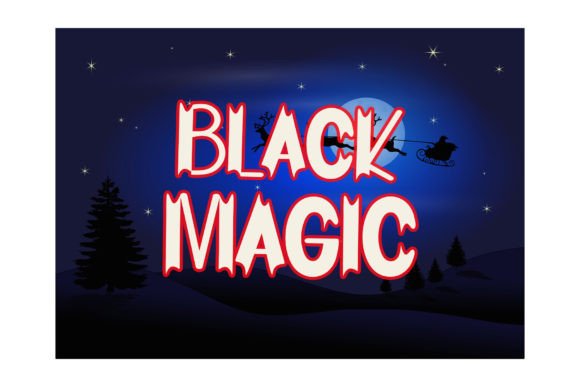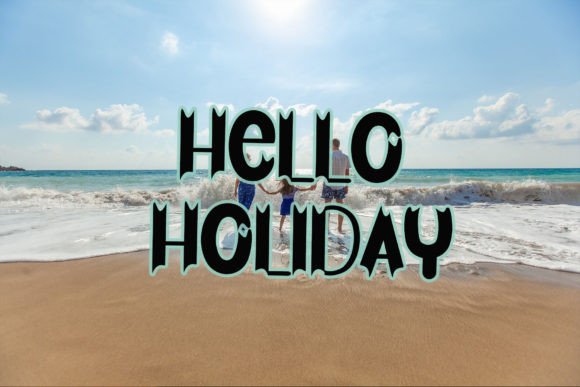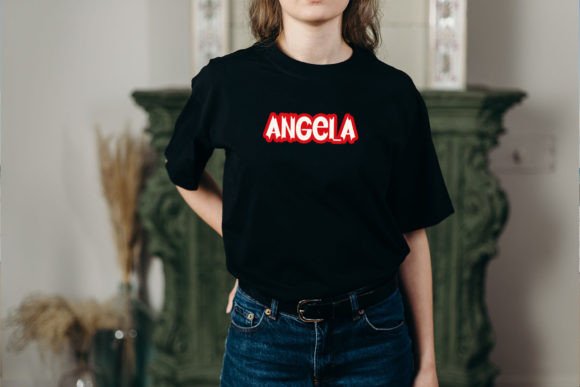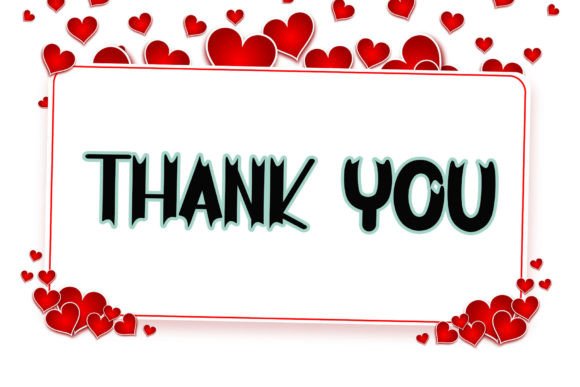
Introduction to Scary Spooky Font
Have you ever been working on a creative project and suddenly, the perfect font strikes your imagination? That’s exactly what happened to me when I stumbled upon the Scary Spooky Font. I was designing a Halloween-themed poster, and I needed a font that would transport my audience to a spooky realm. The moment I saw the jagged edges and eerie shapes of the Scary Spooky Font, I knew I had found the perfect match.
As a designer, having access to high-quality design resources like the Scary Spooky Font can be a game-changer. Not only does it add a touch of sophistication to your designs, but it also saves you time and effort in the long run. Plus, with a transparent background, you can easily incorporate it into your designs without any hassle.
Key Features of Scary Spooky Font
- High-quality design resource ideal for creative projects, including Halloween-themed decorations and spooky-themed websites.
- Scary Spooky Font features a transparent background, allowing for easy integration into various design elements.
- Unique, hand-drawn design with a distressed look, adding a touch of eeriness to any creative project.
- High-resolution design, suitable for use at any size, from small text to large display headers.
- Perfect for designers looking for a free, high-quality design resource to add a spooky touch to their creative projects.
Honest Review: Scary Spooky Font
As a designer, I’m always on the lookout for unique and high-quality design resources to elevate my creative projects. The Scary Spooky Font is one such resource that caught my attention. Here’s my honest review.
- High-quality design: The font is well-crafted, with a clear and readable design.
- Transparent background: The transparent background makes it easy to use this font on various backgrounds.
- Limited character set: The font only includes a limited character set, which may not be suitable for extensive use.
- Lack of flexibility: The font’s design may not be as flexible as some other fonts, making it less suitable for certain design projects.
Overall, the Scary Spooky Font is a great addition to any designer’s toolkit, especially for creative projects that require a spooky or Halloween-themed design. While it has some limitations, its high-quality design and transparent background make it a valuable resource for designers.
How to Use Scary Spooky Font
The Scary Spooky Font is a high-quality design resource ideal for creative projects that require a spooky or eerie atmosphere. It features a unique and eye-catching style that can be used to create a wide range of designs, from Halloween-themed invitations to spooky-themed posters.
Tips for Getting the Most Out of the Scary Spooky Font
Use the font on a transparent background to create a spooky effect.
Combine the font with other design elements, such as images or graphics, to create a unique and eye-catching design.
The Scary Spooky Font is ideal for:
Halloween-themed designs, such as